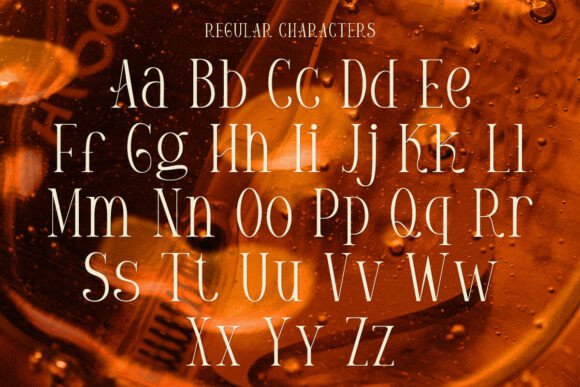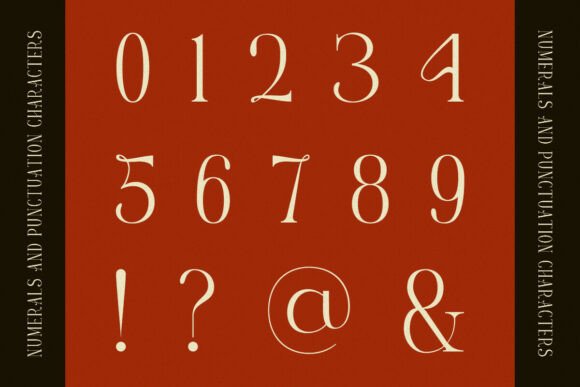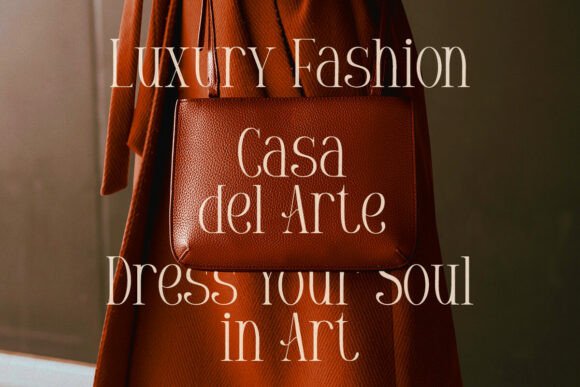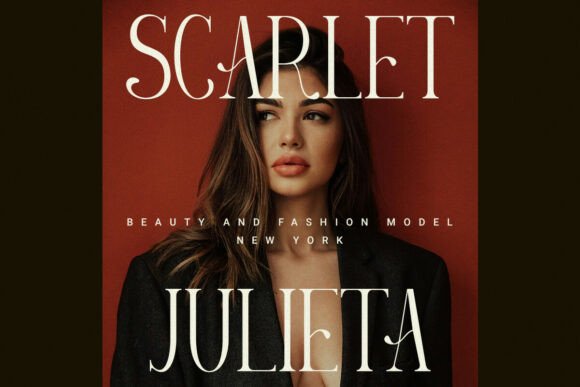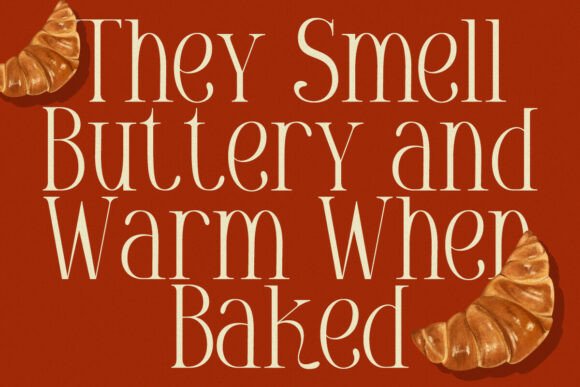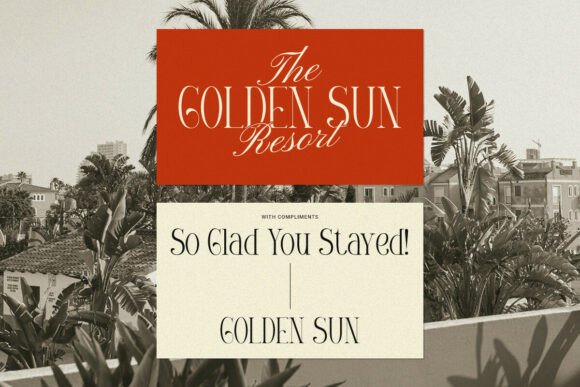
Gorvine Elegant Serif Font: Elevate Your Designs with Timeless Sophistication
In the world of typography, a font can make or break the aesthetic of a design project. For designers and crafters seeking to infuse their work with elegance and style, the Gorvine Elegant Serif Font is an exceptional choice. This modern font is meticulously crafted to add a touch of sophistication to various design elements, including quotes, logotypes, magazine headers, and more. With its versatile nature, Gorvine ensures that your text stands out beautifully, making it a perfect fit for projects that demand a high level of refinement.
The Essence of Gorvine Elegant Serif Font
Gorvine Elegant Serif Font is characterized by its classic serif structure, which exudes a sense of tradition and reliability. However, its modern twist sets it apart from more traditional serif fonts, making it highly suitable for contemporary design projects. The font features meticulously designed letters with subtle flair at the terminals, adding a graceful touch to the overall appearance. The serifs are well-defined yet elegant, contributing to the font’s readability and aesthetic appeal.
One of the standout features of the Gorvine Elegant Serif Font is its versatility. It can seamlessly integrate into a wide range of design projects, including:
- Quotes and Sayings: Add a touch of elegance to inspirational quotes, making them perfect for social media posts, posters, or digital banners.
- Logotypes: Elevate your brand’s logo with a sophisticated and memorable typeface that communicates luxury and quality.
- Magazine Headers: Create stunning magazine or journal headers that grab attention and set the tone for the content.
- Packaging: Enhance product packaging with a refined font that conveys premium quality and attention to detail.
Why Choose Gorvine?
There are several reasons why designers and crafters are gravitating towards the Gorvine Elegant Serif Font:
- Elegance: The font’s elegant design makes it perfect for projects that require a sophisticated look.
- Readability: Despite its elegant appearance, Gorvine maintains high readability, making it suitable for both headings and body text.
- Flexibility: It can be used across various design projects, from digital media to print materials.
- Timeless Appeal: Unlike trendy fonts that may quickly become outdated, Gorvine’s classic base ensures it remains stylish for years to come.
Tips for Using Gorvine Elegant Serif Font
To maximize the impact of the Gorvine Elegant Serif Font in your designs, consider the following tips:
- Pair with Sans-Serif Fonts: For a modern contrast, pair Gorvine with a clean sans-serif font for body text or other design elements.
- Experiment with Colors: While Gorvine looks stunning in classic black and white, don’t be afraid to experiment with colors that match your brand’s palette or the project’s theme.
- Adjust Weight: If available, use different weights of the font to create visual hierarchy in your design, making headings stand out more.
The Gorvine Elegant Serif Font is a powerful tool for designers and crafters aiming to add a layer of elegance and sophistication to their projects. Its modern yet timeless design, combined with its versatility and readability, makes it an excellent choice for a wide range of applications. Whether you’re working on a branding project, a magazine layout, or simply looking to enhance your digital content, Gorvine is sure to elevate your designs to new heights of style and refinement.
Embrace the beauty of Gorvine Elegant Serif Font in your next project and experience the difference that a well-crafted typeface can make.